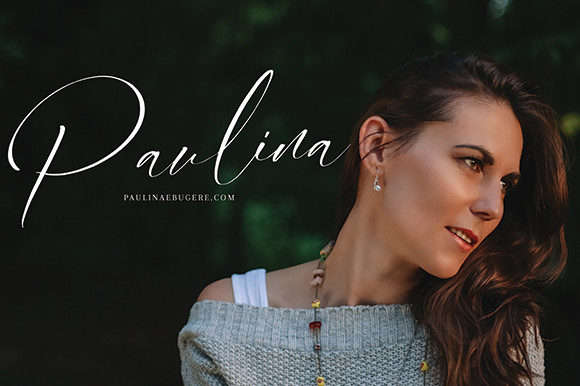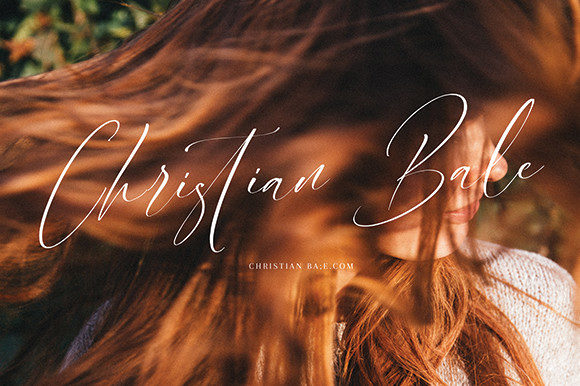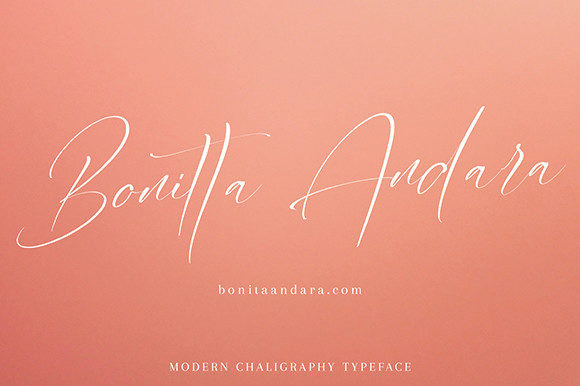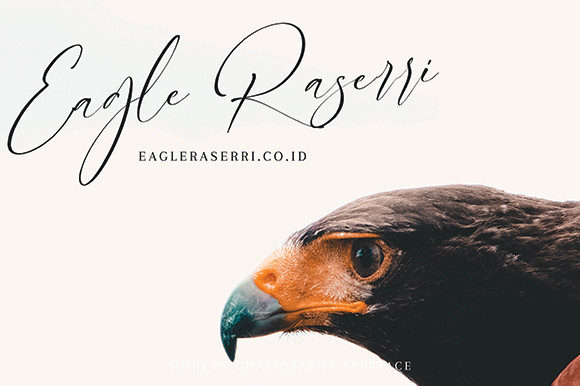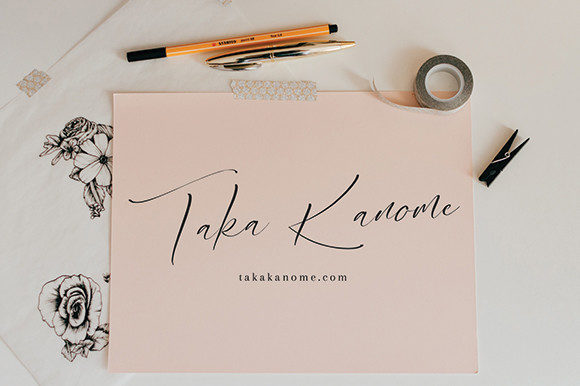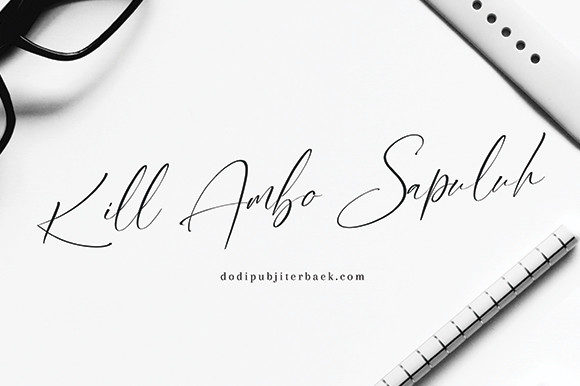
Discover the Charm of Alberto Font: Elevate Your Designs with a Timeless Handwritten Style
Are you on the hunt for a font that adds a personal touch to your designs? Look no further than Alberto Font, a lovely and timeless handwritten font that is sure to capture the hearts of designers and crafters alike. With its unique and beautiful touch, Alberto Font is the perfect choice for creating eye-catching logos, branding, and quotes that stand out from the crowd.
Handwritten fonts have a way of adding a touch of warmth and personality to any design. They evoke feelings of nostalgia and authenticity, making them perfect for designs that require a human touch. Alberto Font is no exception, with its delicate and elegant strokes that mimic the look of handwritten text. Whether you’re designing a logo, brochure, or social media post, Alberto Font is sure to add a touch of sophistication and elegance to your work.
What Makes Alberto Font Special?
So, what sets Alberto Font apart from other handwritten fonts? For starters, every letter has a unique and beautiful touch that makes it truly stand out. The font is carefully crafted to ensure that each letter has its own distinct character, making it perfect for creating eye-catching designs that grab attention. Additionally, Alberto Font is highly versatile, making it suitable for a wide range of design applications, from logos and branding to quotes and social media posts.
Alberto Font is a dream come true for designers and crafters who want to add a personal touch to their work. Whether you’re a professional designer or a hobbyist, this font is easy to use and can be incorporated into your designs with ease. With Alberto Font, you can create stunning logos, brochures, and social media posts that showcase your creativity and style. Plus, the font is highly customizable, allowing you to adjust the size, color, and style to suit your design needs.
Use Cases for Alberto Font
So, how can you use Alberto Font in your designs? Here are a few ideas to get you started:
• Logos and Branding: Use Alberto Font to create a unique and memorable logo that reflects your brand’s personality and style.
• Quotes and Posters: Add a touch of elegance and sophistication to your quotes and posters with Alberto Font.
• Social Media Posts: Use Alberto Font to create eye-catching social media posts that grab attention and drive engagement.
• Brochures and Flyers: Add a personal touch to your brochures and flyers with Alberto Font, making them stand out from the crowd.
Tips for Using Alberto Font
Here are a few tips for using Alberto Font in your designs:
• Experiment with Sizes: Alberto Font looks great in a variety of sizes, so don’t be afraid to experiment and find the perfect size for your design.
• Play with Colors: Try out different colors and combinations to find the perfect look for your design.
• Mix and Match: Combine Alberto Font with other fonts and design elements to create a unique and eye-catching design.
In conclusion, Alberto Font is a timeless and lovely handwritten font that is perfect for designers and crafters who want to add a personal touch to their work. With its unique and beautiful touch, Alberto Font is sure to elevate your designs and make them stand out from the crowd. Whether you’re creating logos, branding, quotes, or social media posts, Alberto Font is the perfect choice. So why wait? Download Alberto Font today and start creating stunning designs that showcase your creativity and style!